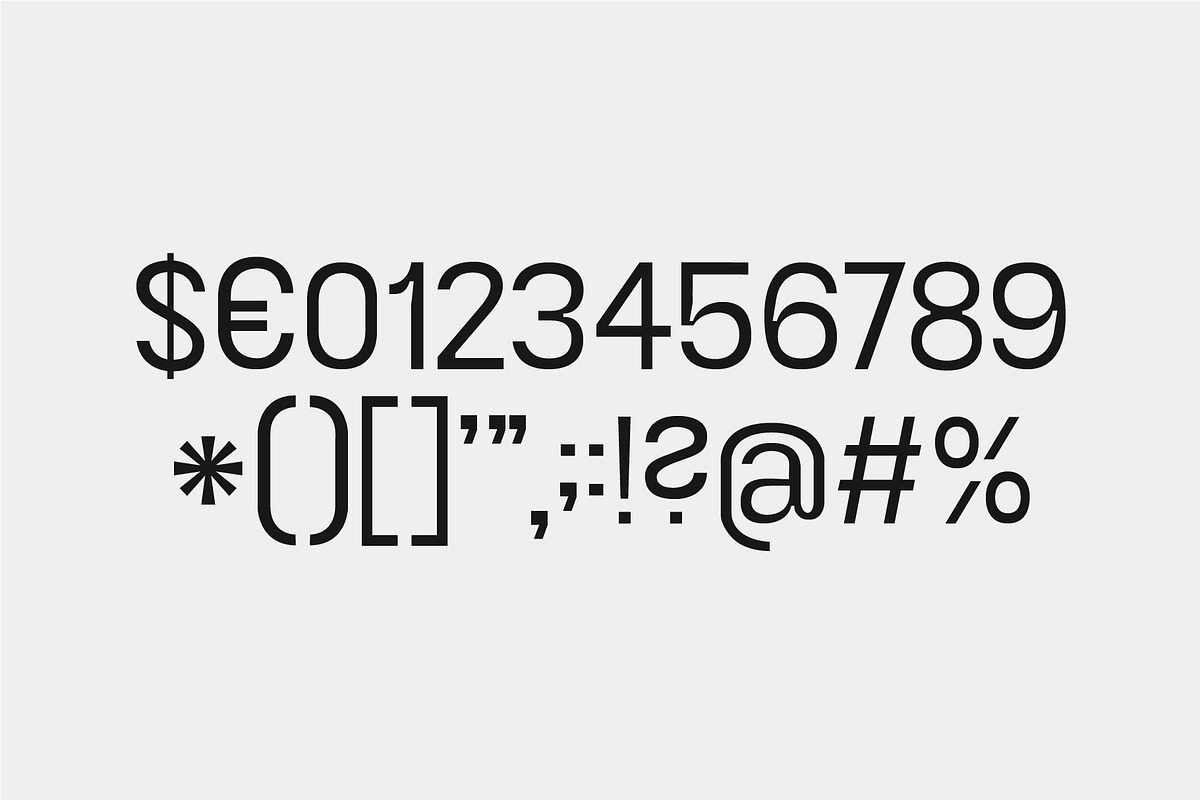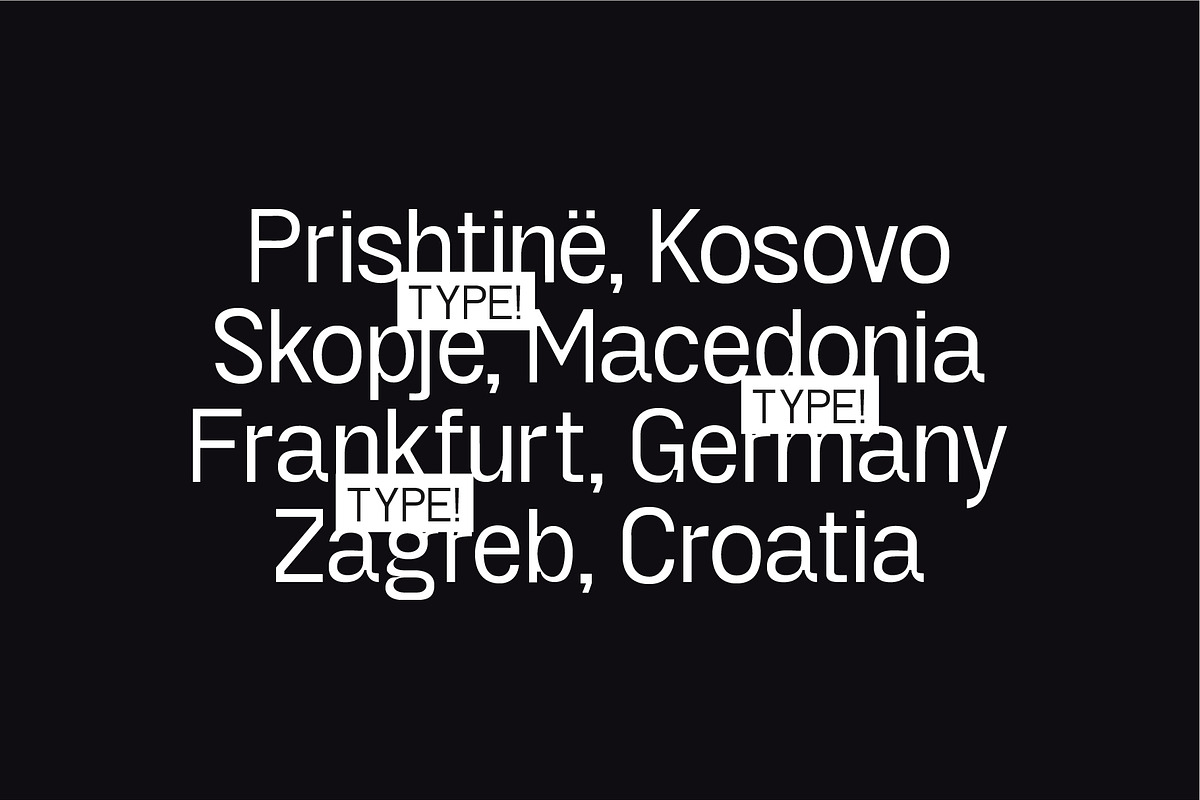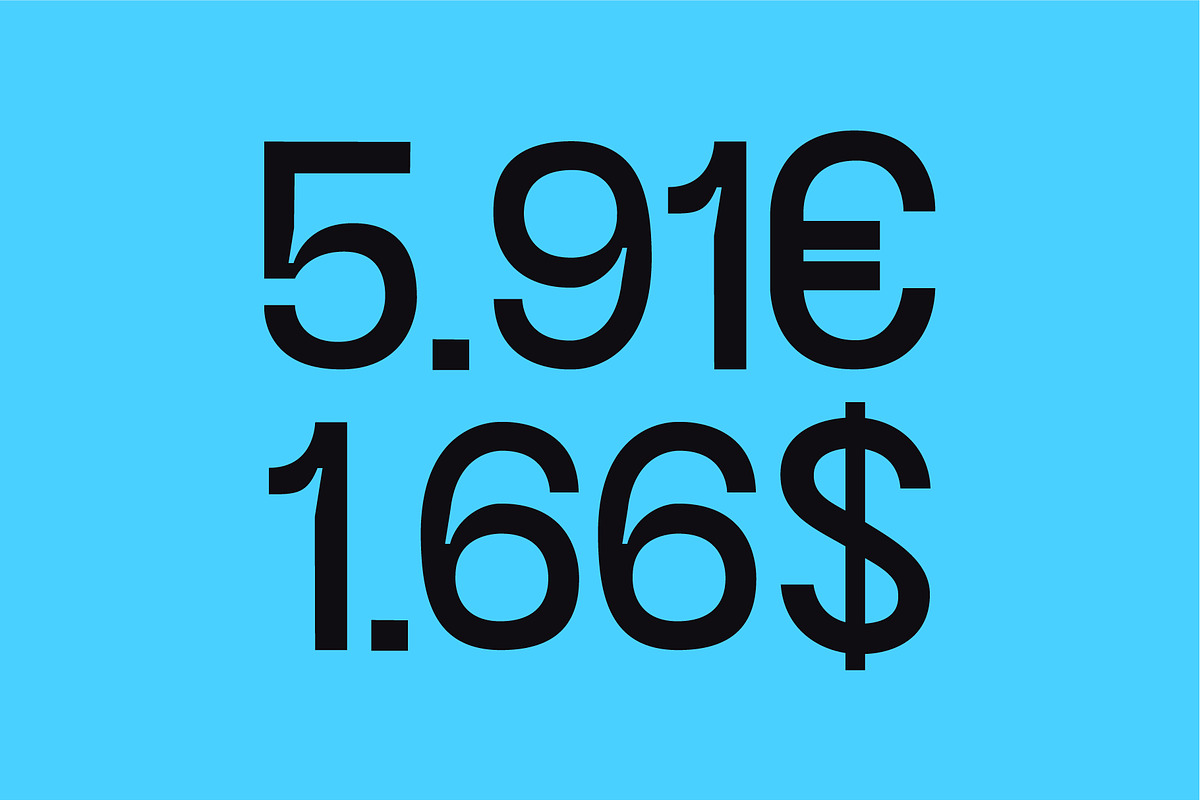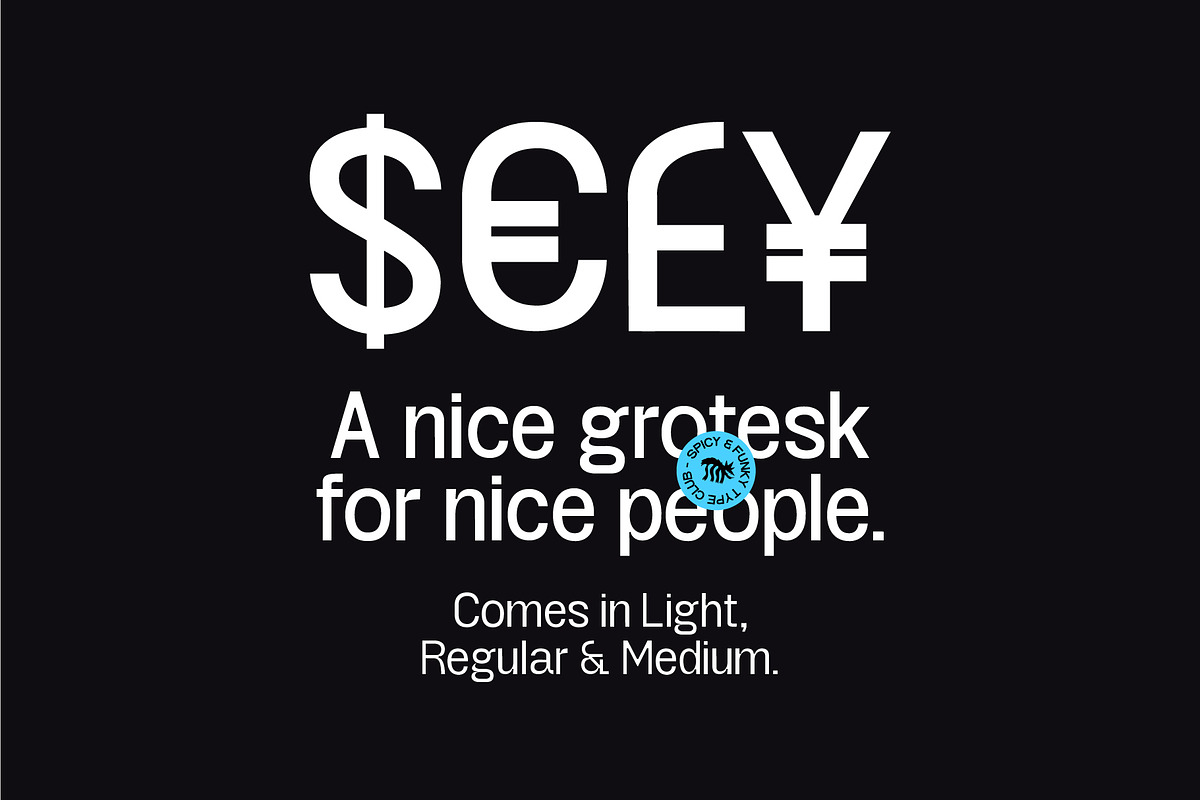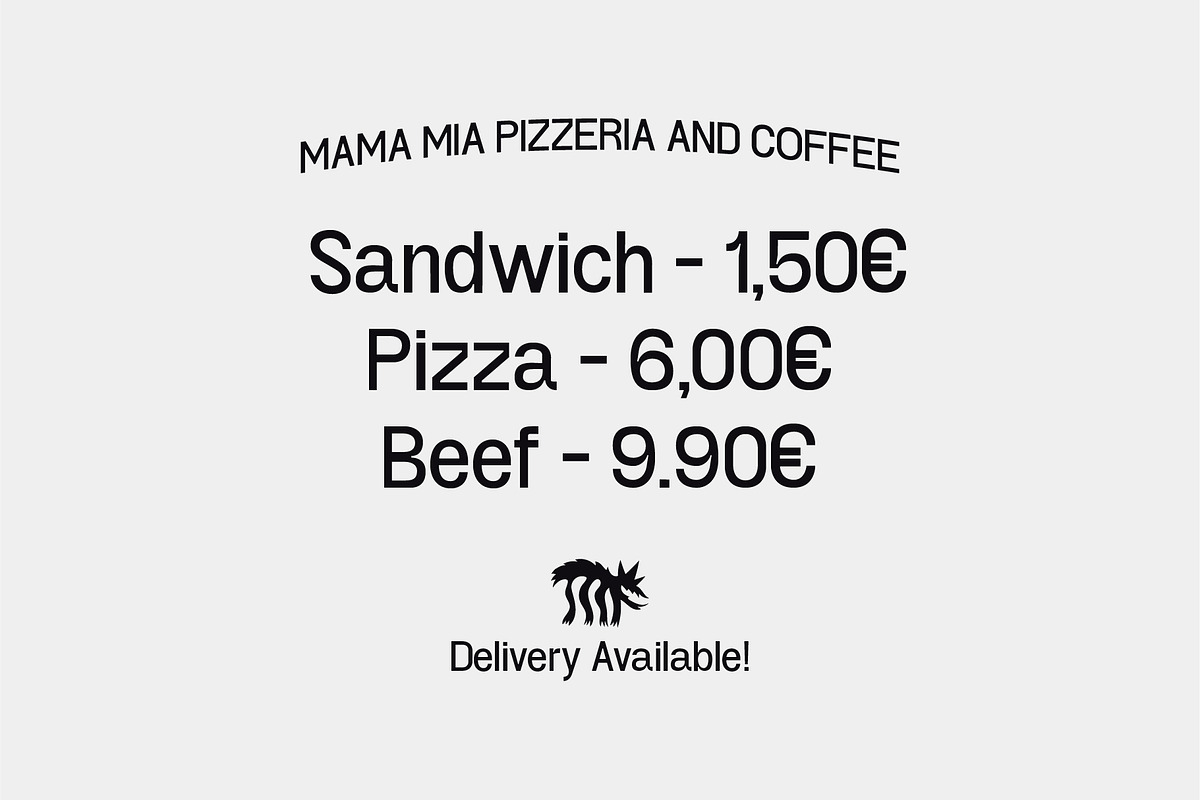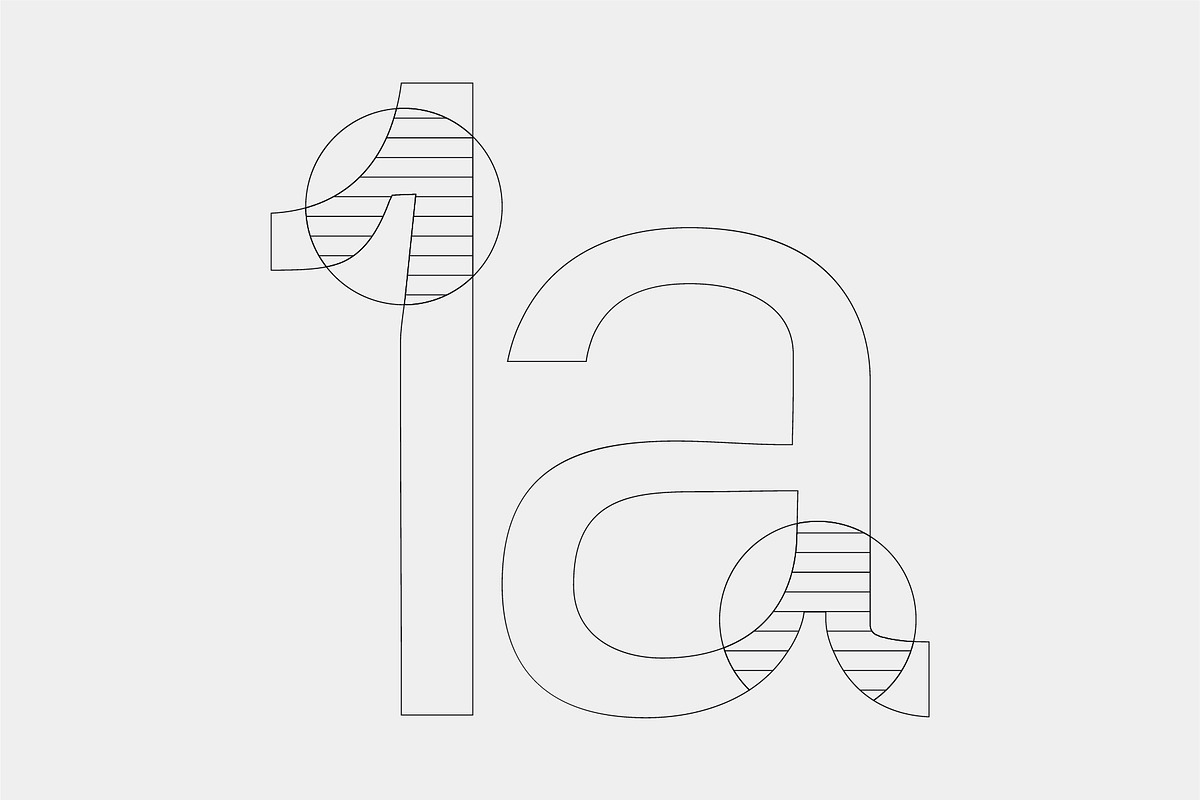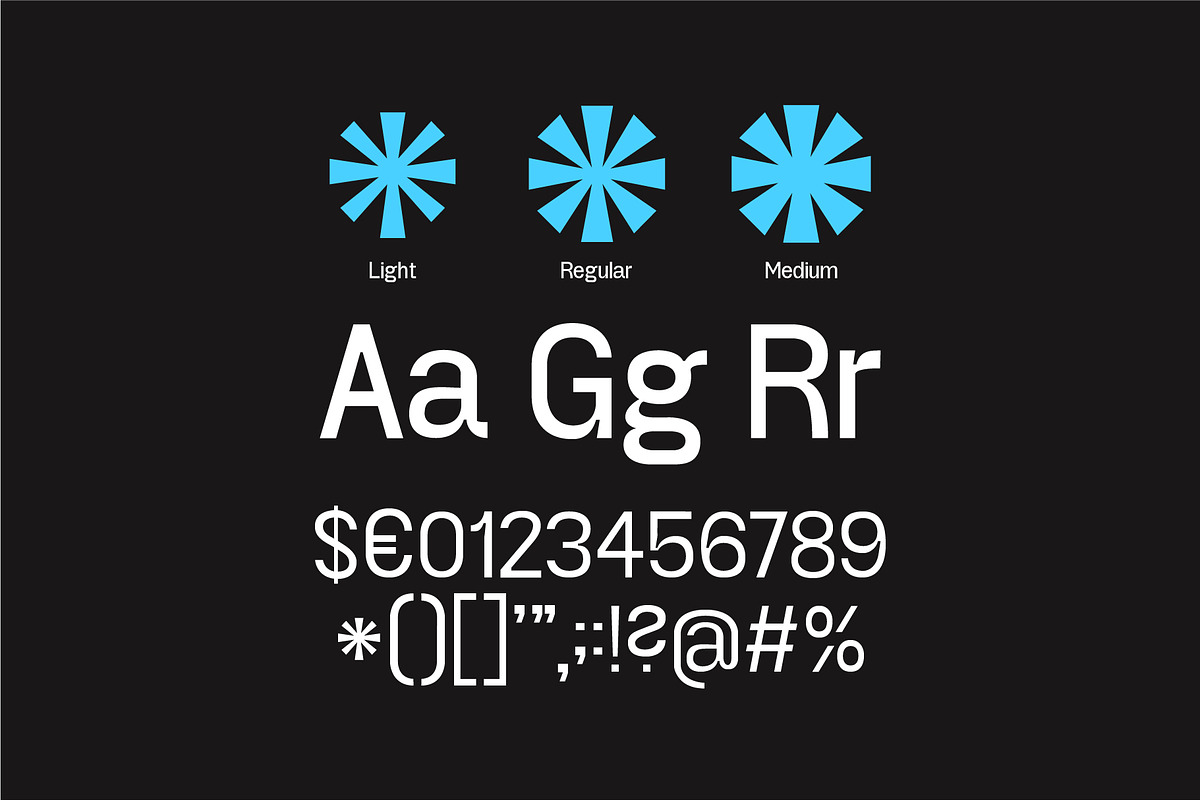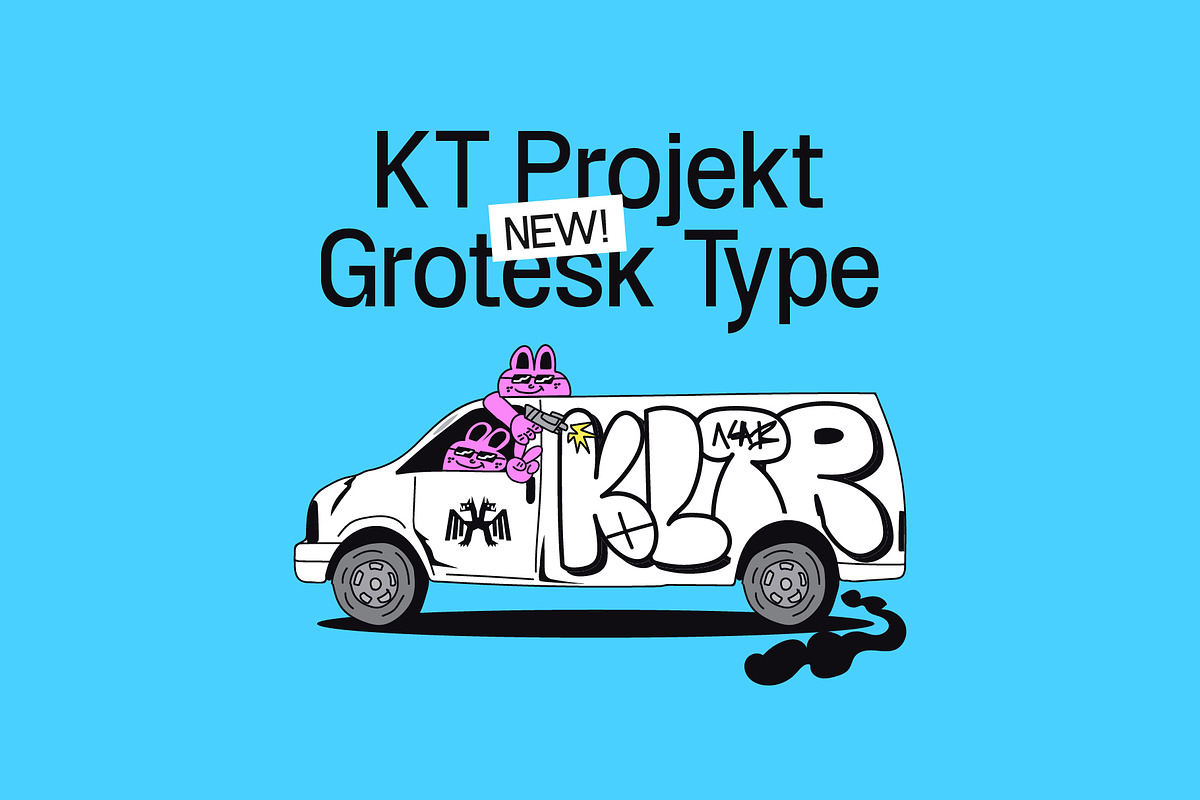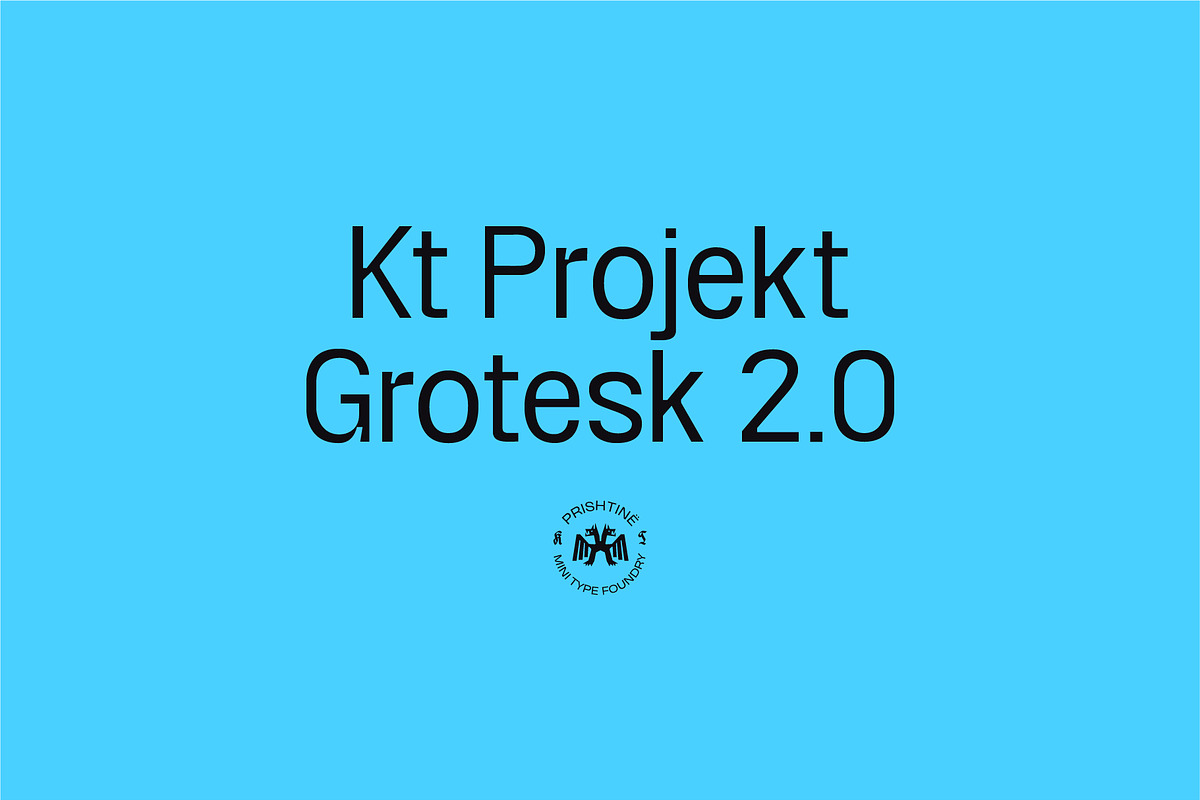
KT Projekt - Grotesk Type
KT Projekt Grotesk - A nice type for nice people. An old release retouched heavily & given a new vibe. Features some subtle but interesting details, as per usual the ink traps are present. Available in 3 weights & now features a few Western European accents.